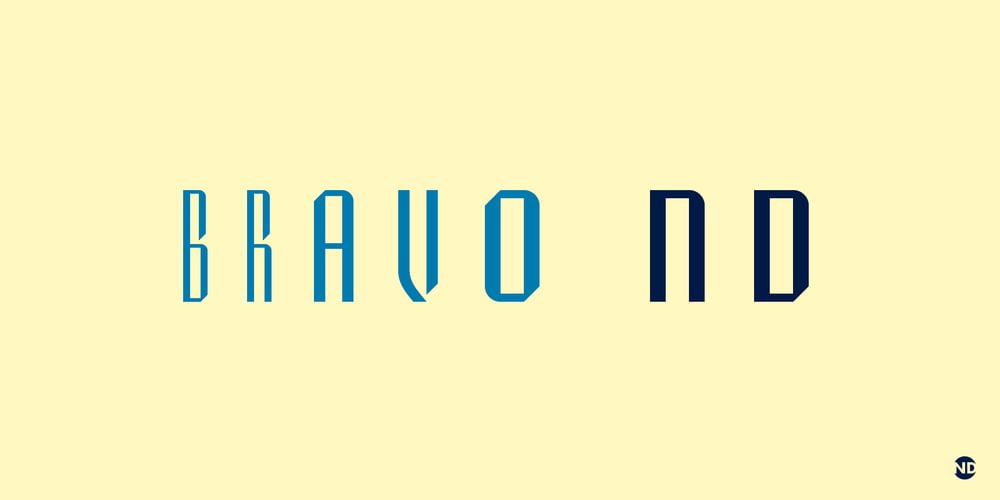
Bravo ND
Bravo ND font
Bravo ND Font Family was designed by José María Cerezo and published by Neufville Digital. Bravo ND contains 12 styles and family package options. Designed by José María Cerezo, with a geometric style and futuristic touches. A typeface family that offers good results in labeling, posters and big formats. Inspired by art deco with a sci-fi touch, it is a typeface with a strong character and personality. Bravo is a Trademark of BauerTypes SL